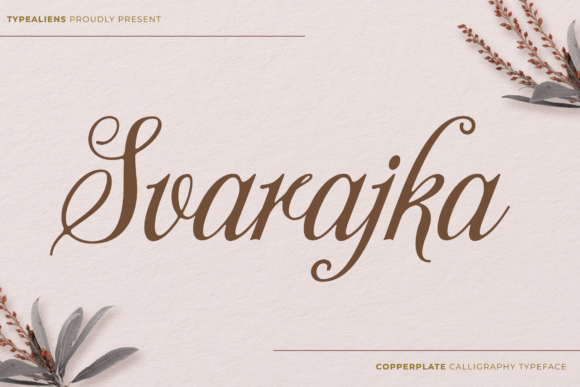
Unleash the Timeless Charm of Svarajka: A Journey Through History and Elegance
In a world brimming with digital creations, Svarajka emerges as a beacon of classic artistry, a font that echoes the allure of bygone eras. Inspired by the intricate engravings of copper plates, Svarajka carries the weight of history, whispering tales of a time when handwritten letters held the power to captivate hearts and minds.
With its graceful curves and delicate flourishes, Svarajka possesses an undeniable charm that transcends time. Its carefully crafted characters evoke a sense of nostalgia, inviting you to explore the elegance of simpler times. Whether you seek to create a heartfelt letter, a timeless wedding invitation, or a captivating brand identity, Svarajka promises to add a touch of timeless sophistication to your designs.
Beyond its historical charm, Svarajka's versatility knows no bounds. Its carefully balanced letterforms lend themselves beautifully to a wide range of design styles, from classic and elegant to modern and minimal. Whether you envision a vintage-inspired poster, a chic social media post, or a stunning logo, Svarajka's adaptability ensures that your creations will radiate an air of sophistication and charm.
With Svarajka as your creative companion, you'll embark on a journey of timeless elegance, where your designs will captivate audiences with their classic allure. Embrace the beauty of the past and let Svarajka guide you towards creating masterpieces that stand the test of time.
- Classic script font inspired by copper plate engravings
- Elegant and timeless design, perfect for a wide range of projects
- Versatile enough for both classic and modern design styles
- Add a touch of timeless sophistication to your designs
- Create heartfelt letters, elegant wedding invitations, and captivating brand identities
- Elevate your designs with a font that exudes charm and elegance